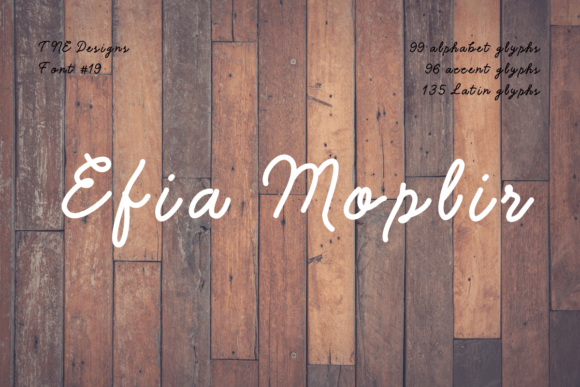
Embark on a typographic expedition with Efia Moplir, a script font family that's not just a collection of letters, but a gateway to a world of boundless creativity. This delightful handwritten font, crafted with meticulous care by TNE Designs, exudes charm and charisma in every stroke. Its amiable personality transforms any design into an authentic masterpiece.
Visualize your Instagram posts, adorned with Efia Moplir's captivating allure. Its friendly demeanor invites engagement and ignites conversations, turning your social media presence into a captivating haven. Let your DIY projects blossom with Efia Moplir's enchanting touch, transforming ordinary crafts into extraordinary works of art. This font is your magic wand, turning creative sparks into tangible wonders.
Efia Moplir's versatility knows no bounds. Its playful nature lends itself effortlessly to logos, adding a touch of whimsy and uniqueness to your brand identity. Explore the realm of invitations and greeting cards, and discover how Efia Moplir adds a personal touch, making every message heartfelt and memorable. Unleash your inner artist and create wall art that speaks volumes, captivating the hearts of all who behold it.
With Efia Moplir, you're not just purchasing a font; you're unlocking a treasure trove of endless creative possibilities. Its user-friendly nature makes it a breeze for both seasoned designers and those just dipping their toes into the world of typography. Let Efia Moplir guide you on an artistic odyssey, where imagination reigns supreme, and every creation becomes a reflection of your unique style.
Embrace the world of Efia Moplir, a font that's more than just a tool—it's an experience. Its friendly charm, boundless versatility, and ceaseless inspiration will elevate your designs to unprecedented heights. Let your creativity soar, let your imagination run wild, and let Efia Moplir be your trusted companion on this extraordinary journey.